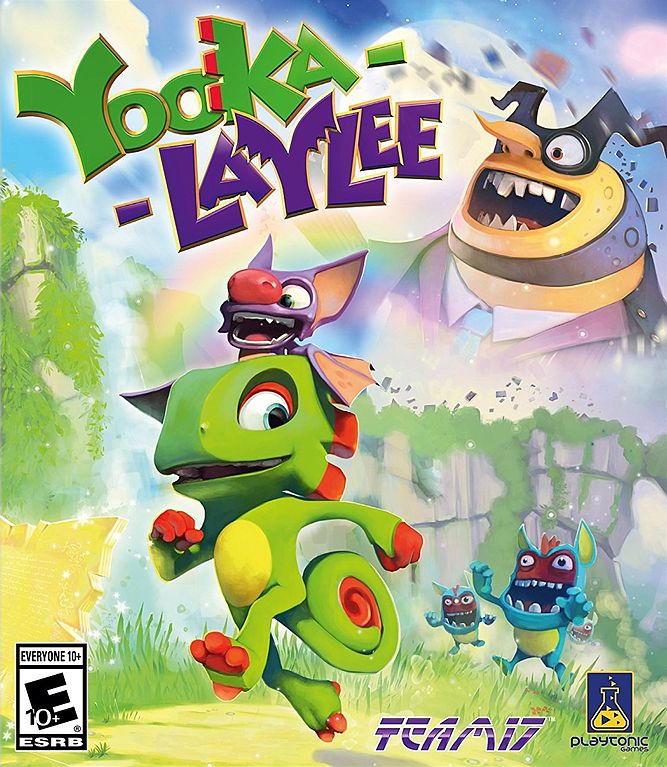
Yooka-Laylee Font
The font used for the Yooka-Laylee game title on the cover is Lithos Black, a decorative sans-serif by Carol Twombly. Lithos font family comes is five weights variants: Extra Light, Light, Regular, Bold, and Black.